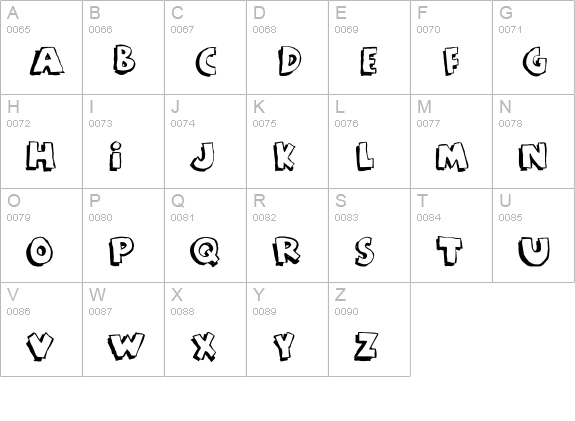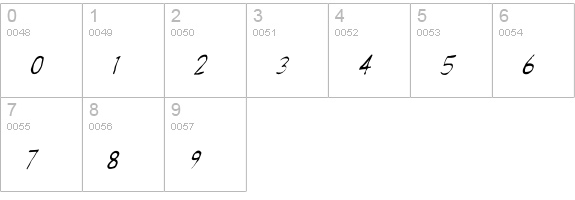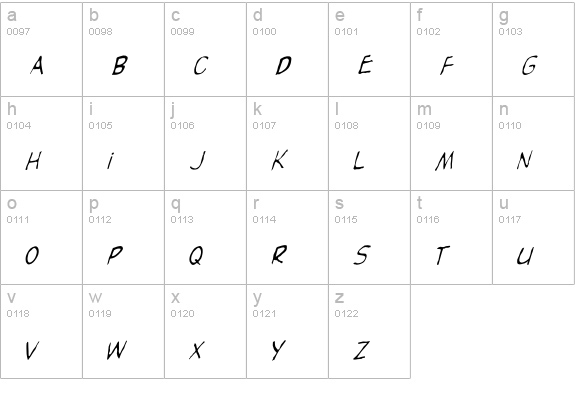
Rant Font Details
Introducing Rant font, a visually captivating and effortlessly stylish typeface that is sure to catch the eye and leave a lasting impression. With its bold and edgy design, Rant font exudes a sense of confidence and modernity, making it the perfect choice for a variety of creative projects. Featuring a unique combination of sharp angles and smooth curves, this font strikes the perfect balance between sophistication and playfulness. Each character is meticulously crafted to ensure maximum legibility and visual impact, making Rant font suitable for both headlines and body text. But what sets Rant font apart from the rest is not just its striking appearance, but also its accessibility. This remarkable font is freely available to download at FontsMarket.com, offering designers and enthusiasts alike the opportunity to add a touch of innovation and flair to their projects without any cost. Whether you're designing a captivating logo, creating eye-catching posters, or crafting stunning website headers, Rant font is the ideal choice to elevate your design to new heights. Its versatility and contemporary charm make it suitable for a wide range of applications, ensuring that your message will be conveyed with utmost style and impact. Embrace the freedom of creativity with Rant font. Download it for free at FontsMarket.com and let your imagination run wild as you explore the endless possibilities that this remarkable typeface has to offer.